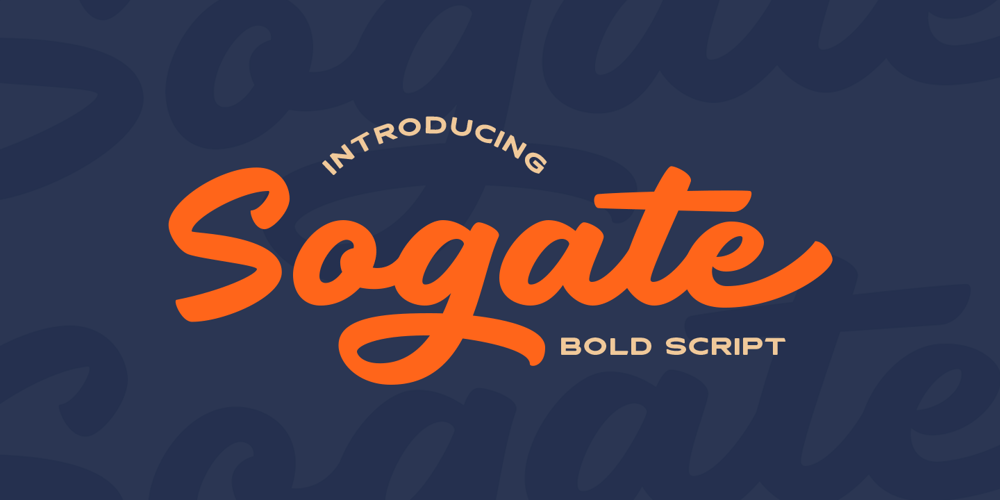
Sogate
Sogate font
Sogate Font Family was designed by Hendry Juanda and published by Letterhend. Sogate contains 1 styles and family package options. Introducing, Sogate – a bold script which is purposely made for logotype. This type of font perfectly made to be applied especially in logo, and the other various formal forms such as invitations, labels, logos, magazines, books, greeting / wedding cards, packaging, fashion, make up, stationery, novels, labels or any type of advertising purpose.Features : uppercase & lowercase numbers and punctuation multilingual alternates and ligatures PUA encoded We highly recommend using a program that supports OpenType features and Glyphs panels like many of Adobe apps and Corel Draw, so you can see and access all Glyph variations.